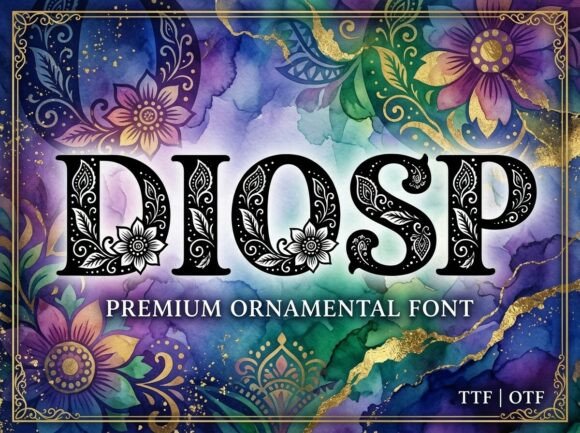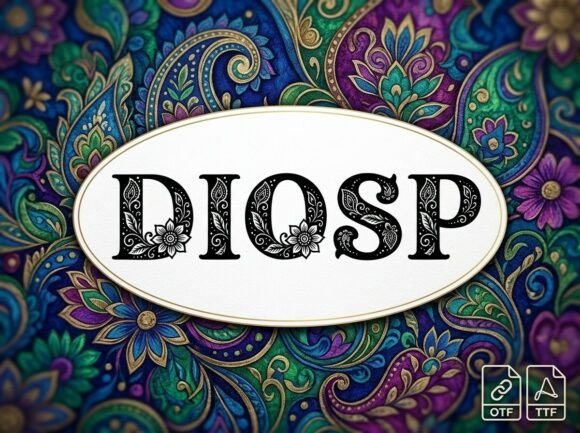
Introducing Diosp Font: Elevate Your Designs with Artisanal Beauty
In the world of typography, few fonts manage to capture the essence of artisanal beauty and luxury. However, Diosp Font stands out as a breathtaking decorative serif that embodies a “lush-and-legendary” soul. This stunning font is designed to infuse your designs with a unique blend of traditional South Asian textiles and modern luxury branding, making it perfect for a wide range of creative projects.
The Unique Characteristics of Diosp Font
Diosp Font boasts sturdy, high-contrast letterforms that are uniquely characterized by rhythmic, hand-illustrated floral motifs and delicate paisley patterns integrated into every stroke. This distinctive feature set bridges the gap between traditional South Asian textiles and modern luxury branding, giving your designs a touch of elegance and sophistication.
Design Features and Personality
With its medium structural weight and ornamental personality, Diosp Font is the premier choice for designers looking to add a touch of luxury to their projects. The font’s intricate details and beautiful patterns evoke a sense of artisanal craftsmanship, making it perfect for designs that require a high level of sophistication.
Ideal Applications for Diosp Font
Diosp Font is an incredibly versatile font that can be used in a wide range of design applications. Some of the ideal uses for this font include:
- Independent boutique yoga studio identities: Create a serene and luxurious brand identity for your yoga studio with Diosp Font.
- Boutique spice packaging: Add a touch of elegance to your spice packaging with Diosp Font’s intricate patterns and floral motifs.
- Premium wellness logos: Create a luxurious brand identity for your wellness business with Diosp Font’s sophisticated and ornamental personality.
- High-impact “botanical-and-bespoke” social media headers: Elevate your social media presence with Diosp Font’s stunning decorative serif and intricate patterns.
Why Choose Diosp Font?
There are many reasons why Diosp Font stands out from the crowd. Here are just a few:
- Unique and elegant design: Diosp Font’s intricate patterns and floral motifs make it a truly unique and elegant font.
- Highly versatile: Diosp Font can be used in a wide range of design applications, from luxury branding to packaging and social media headers.
- Perfect for designers and crafters: Diosp Font is a great choice for designers and crafters looking to add a touch of artisanal beauty to their projects.
In conclusion, Diosp Font is a stunning decorative serif that is sure to elevate your designs with its artisanal beauty and luxurious personality. With its unique characteristics, versatility, and elegant design, Diosp Font is the perfect choice for designers and crafters looking to create high-end designs that stand out from the crowd. Whether you’re looking to create a luxurious brand identity, elegant packaging, or stunning social media headers, Diosp Font is the perfect choice.
Get Ready to Infuse Your Designs with Artisanal Beauty